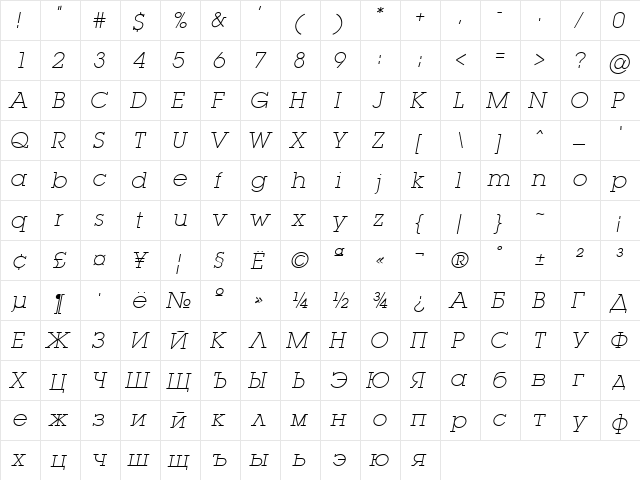
LugaExtra ExtraLight Oblique Font Preview
LugaExtra ExtraLight Oblique
Design Context for LugaExtra Typeface
LugaExtra offers clean, dependable letterforms without strong stylistic allegiance, making it a practical choice for designers who need flexibility. Its italic angle brings a sense of urgency and motion to the letterforms. The delicate stroke weight brings airiness and refinement to layouts.